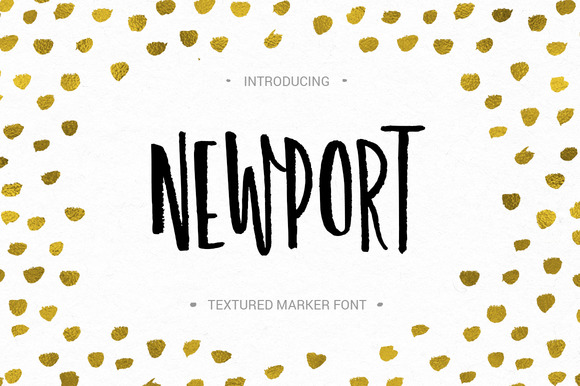
Introducing the Newport Font: An Enchanting Journey into Playful Creativity
In a world where fonts set the tone, meet Newport Font—a whimsical and expressive display font that dances across your designs, bringing a touch of childlike wonder and playful charm. Created by the talented Favete Art, Newport is not just a font; it's an invitation to let your imagination soar and leave a trail of enchanting words wherever you go.
With its innocent marker-style strokes and a captivating dancing baseline, Newport effortlessly captivates the eye and makes any text leap off the page. Whether you're crafting endearing invitations, designing playful posters, or adding a dash of whimsy to your social media posts, Newport weaves a magical spell that transforms ordinary words into extraordinary expressions.
Imagine the joy of your loved ones as they receive an invitation written in Newport's jubilant script, promising an unforgettable celebration. Picture the delight of your audience as they encounter your posters and flyers, each letter a lively dance step, beckoning them closer to discover your message. And envision the smiles on your followers' faces as they engage with your social media posts, drawn in by Newport's irresistible charm and infectious energy.
Newport is more than just a font; it's an experience—a journey into a world where creativity knows no bounds and imagination reigns supreme. It's a font that sparks joy, ignites wonder, and leaves an everlasting impression. So, embrace the magic of Newport and let your creativity flourish like never before.